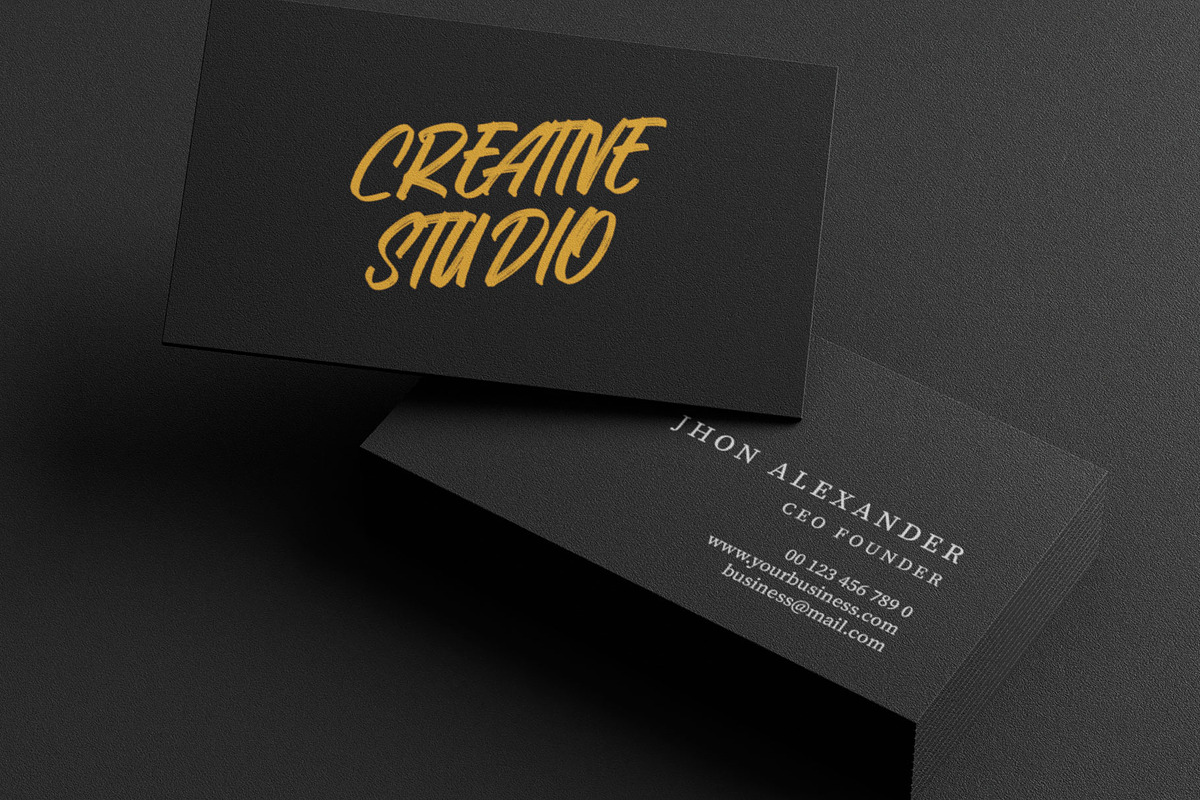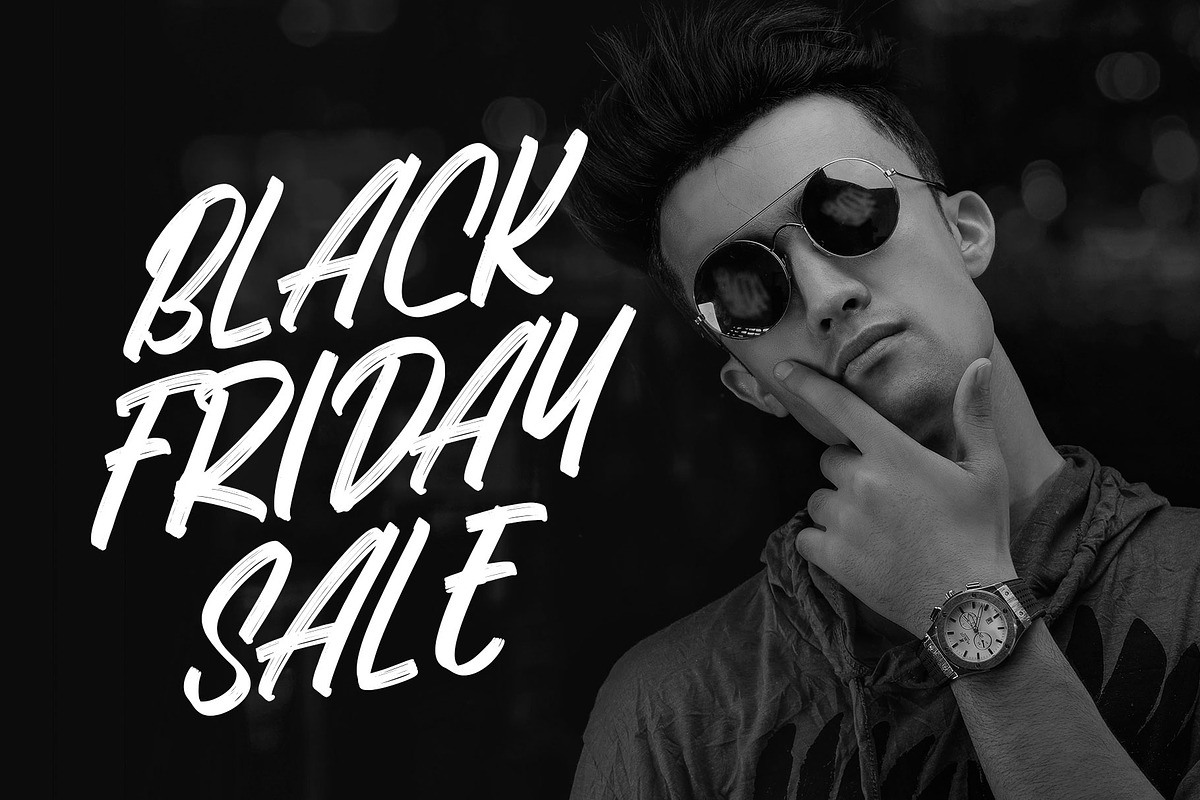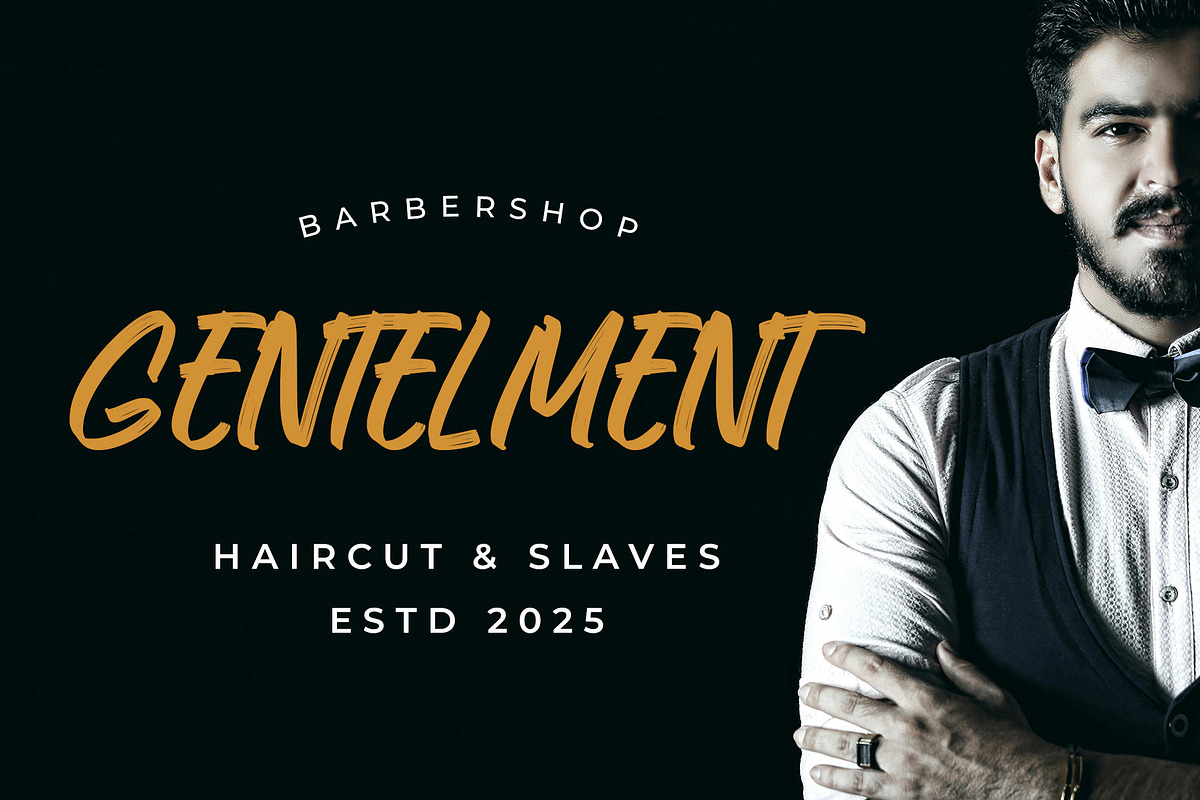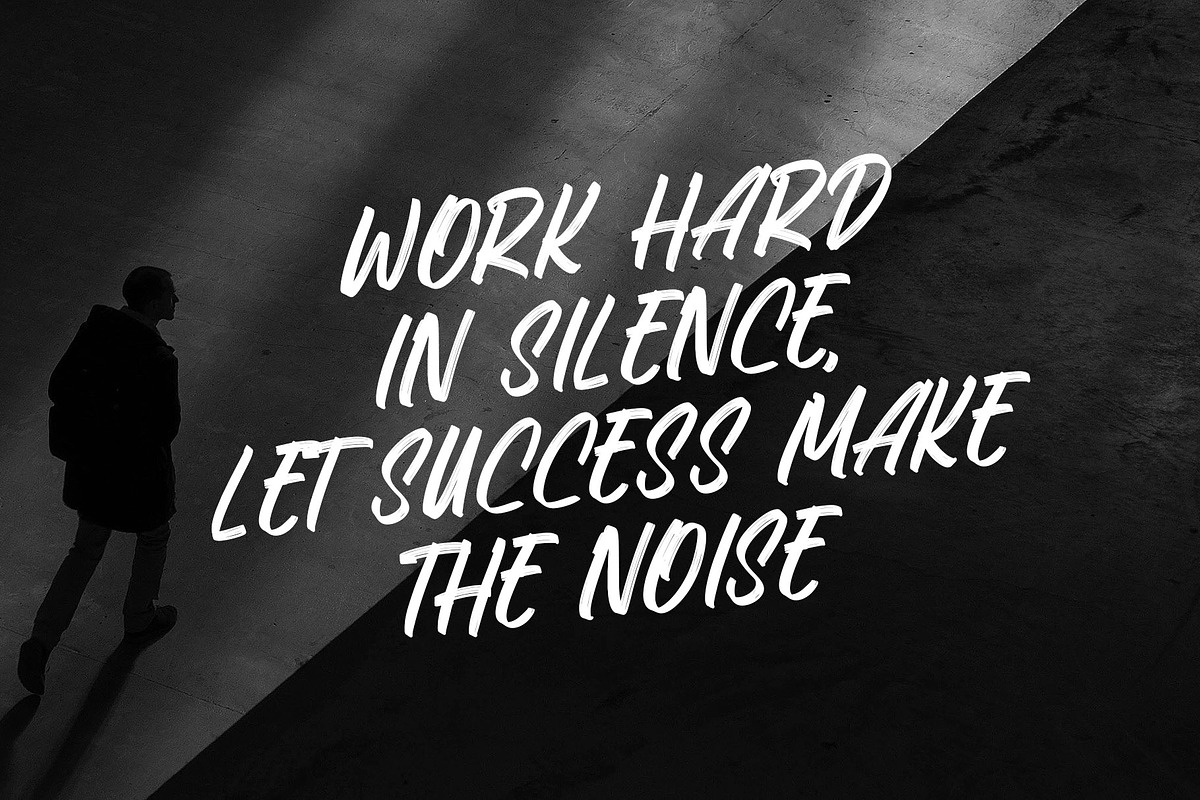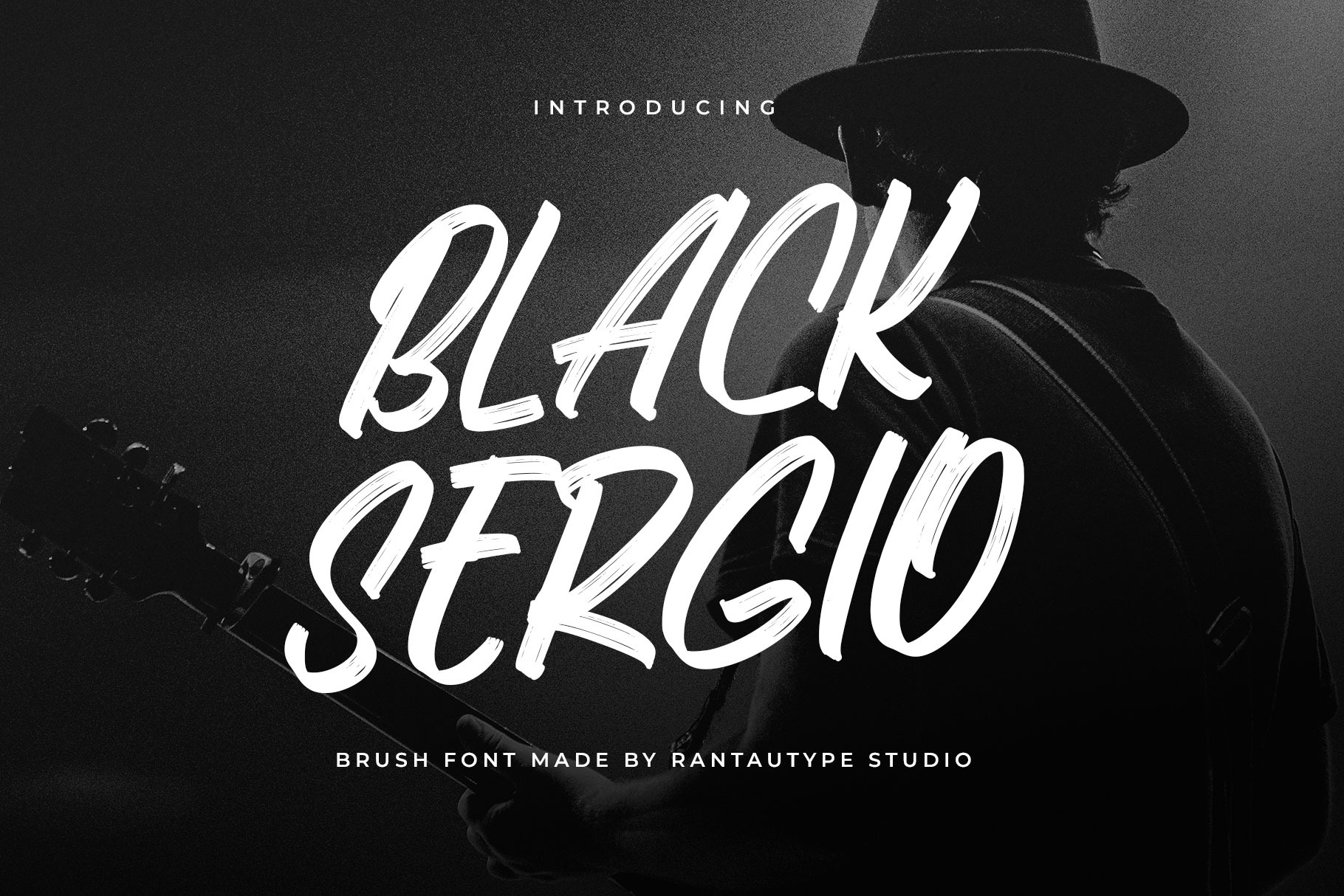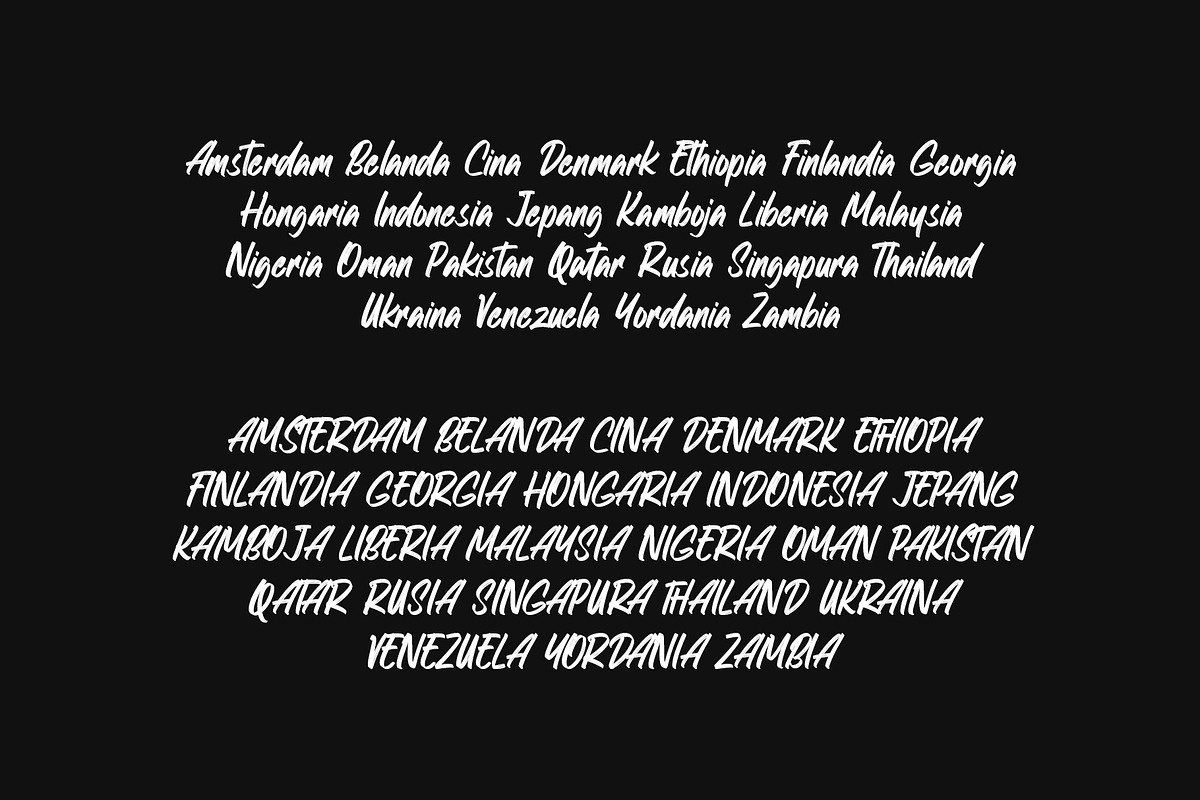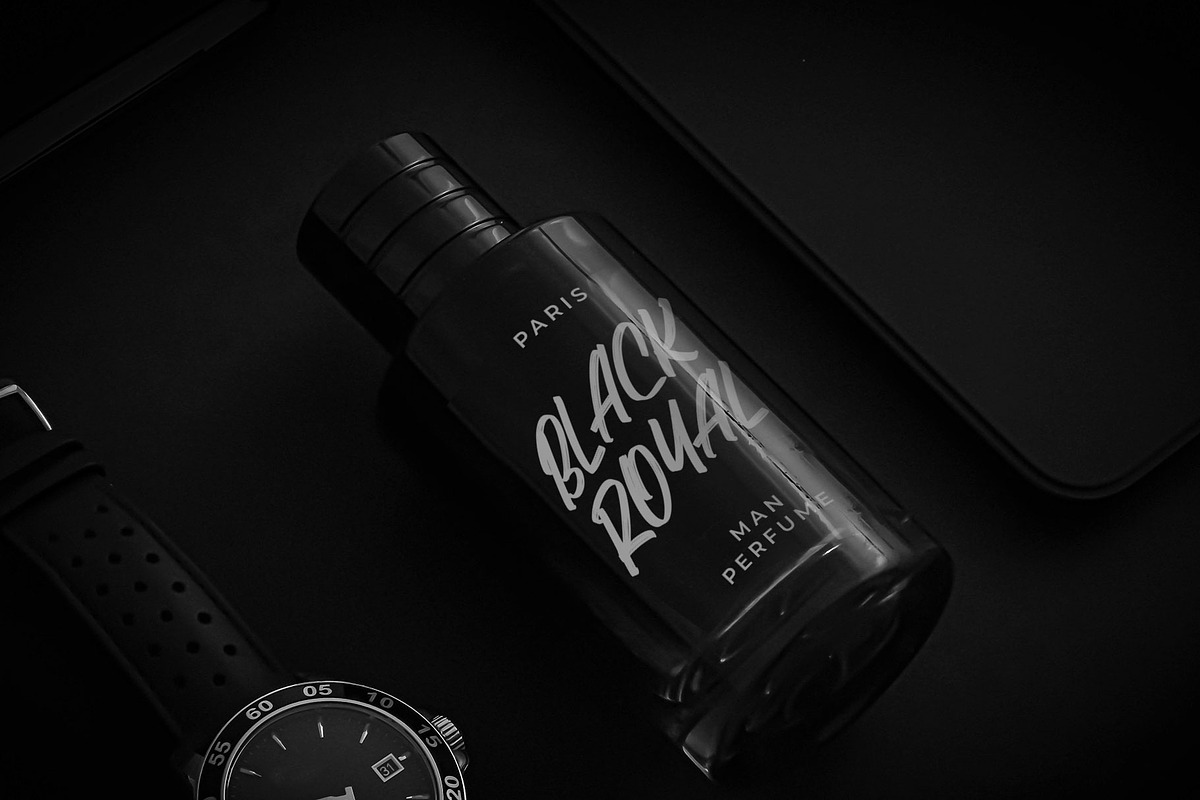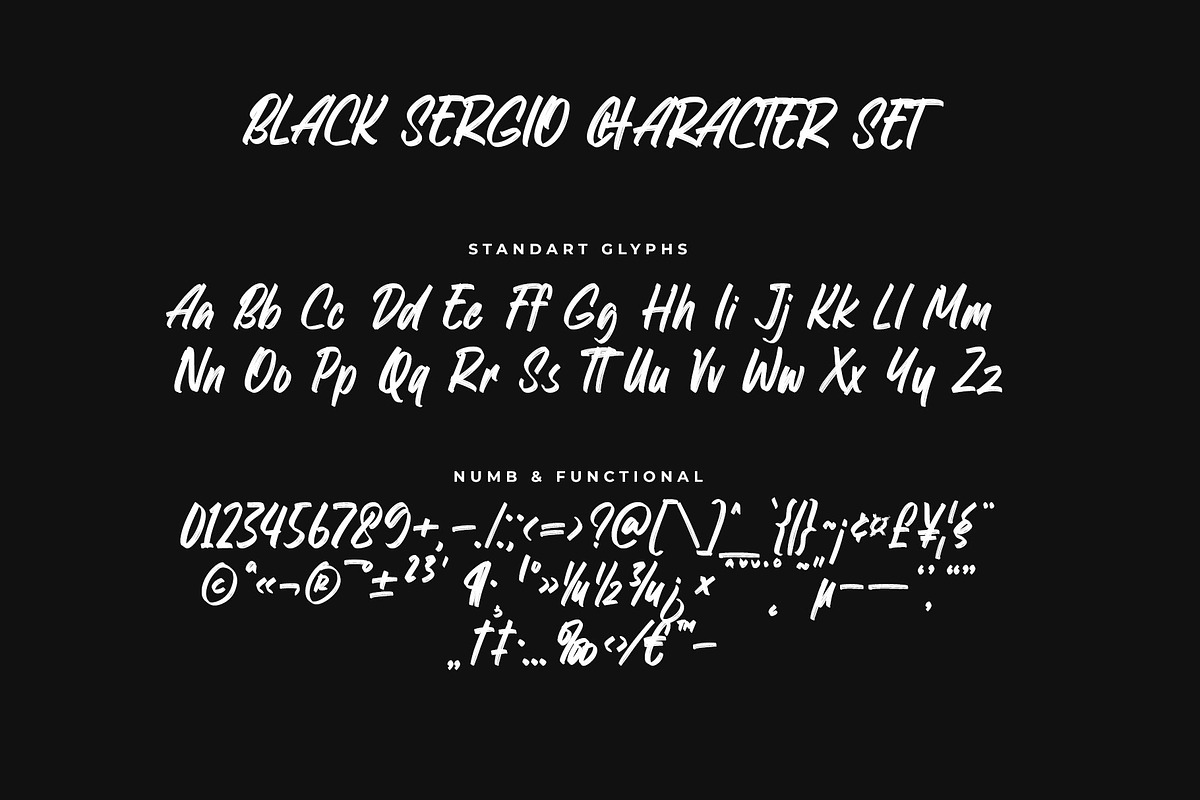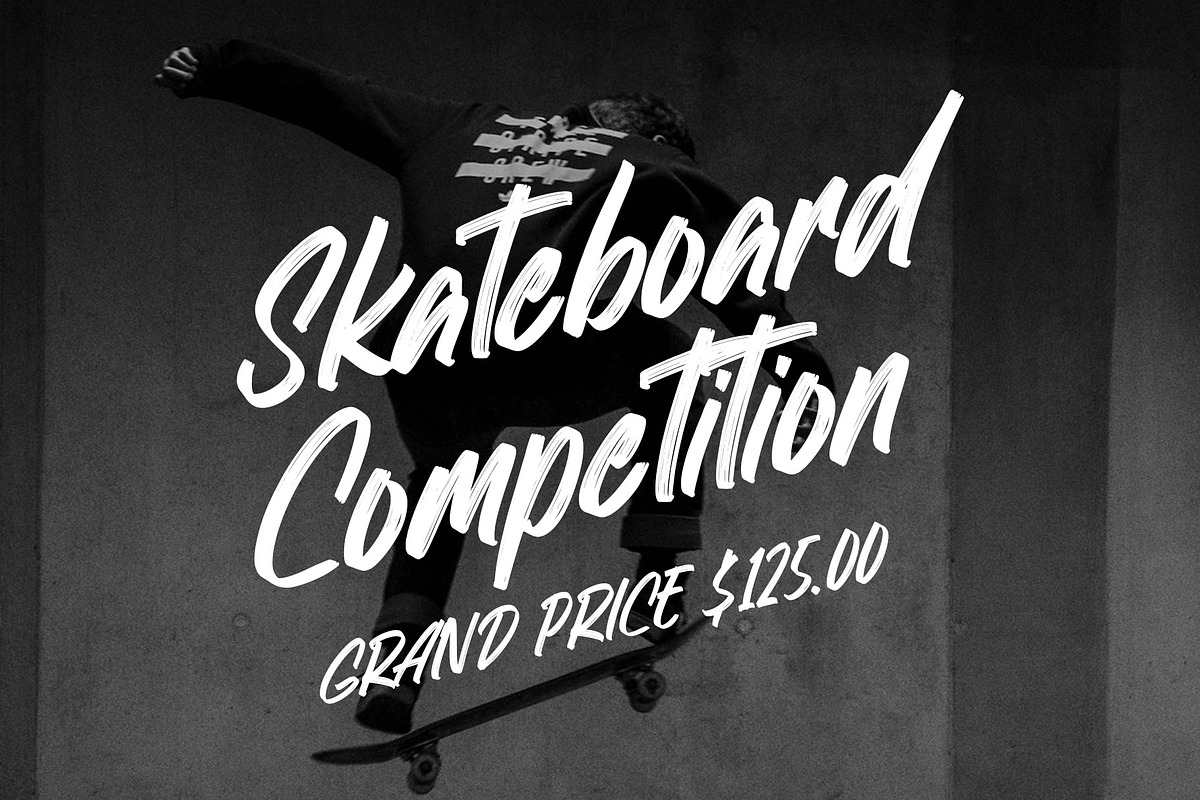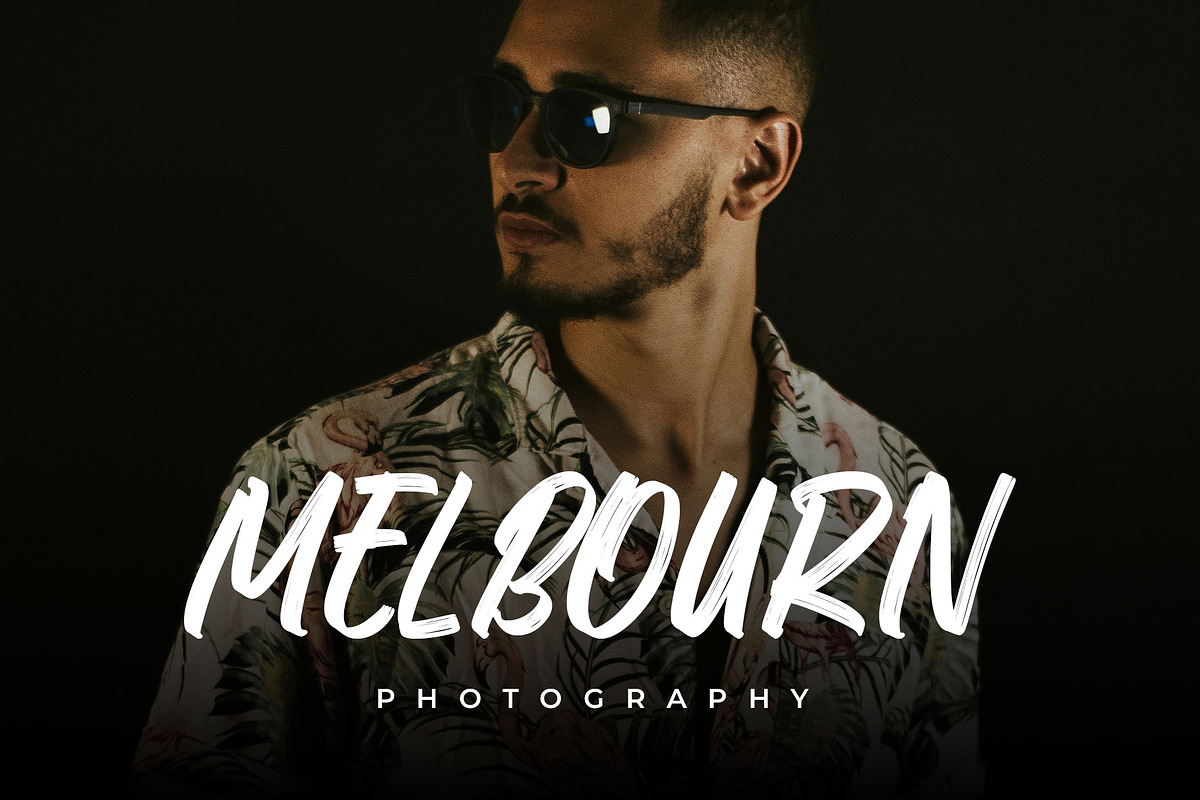
Black Sergio Brush Font
Black Sergio is brush font made by rantautype studio. Black Sergio is a perfectly choice for any creative endeavor, creating, modern, lifestyle design such as logotype, title, cover, branding, invitations, wedding designs, display and magazine, social media posts, advertisements, printed quotes, product packaging, corporate brand, product designs, labels, photography, watermarks, special events and any other project with modern touch.
- Alternate and ligature